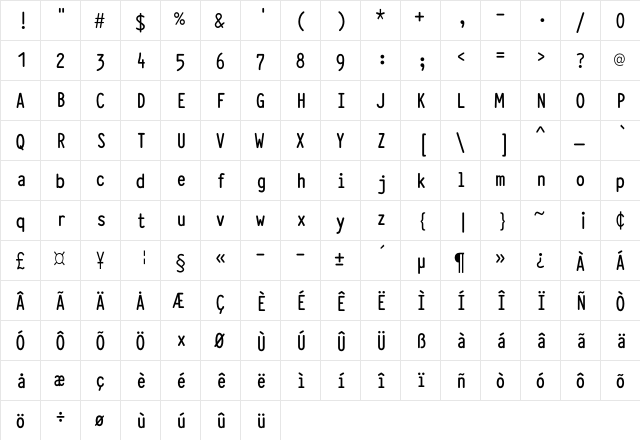
Typewriter_Condensed Bold Font Preview
| Foundry | Volker Busse, Berlin |
| Designer | Volker Busse |
Design Context for Typewriter_Condensed Typeface
Typewriter_Condensed brings the precise, column-aligned rhythm of monospaced typography to designs that value technical clarity and systematic order. The heavy weight commands attention and anchors typographic hierarchies.
Pro Tip: Use Typewriter_Condensed with slightly increased line-height for extended reading — fixed-width spacing can feel dense in longer passages without extra breathing room.